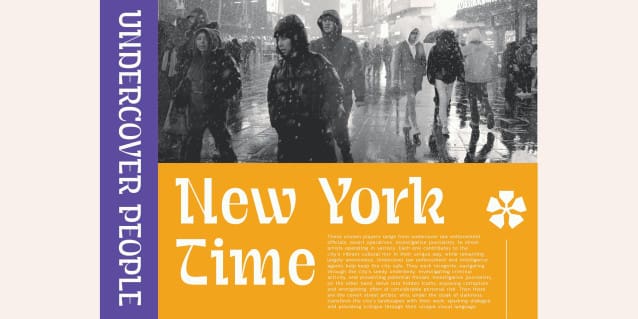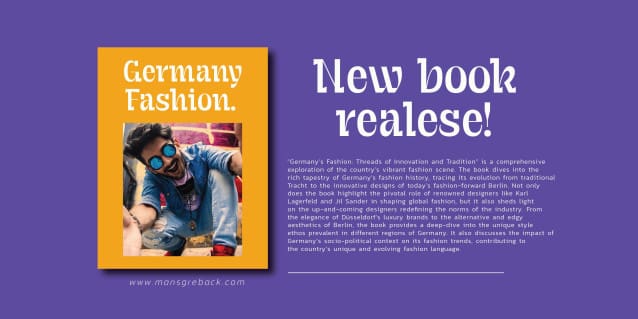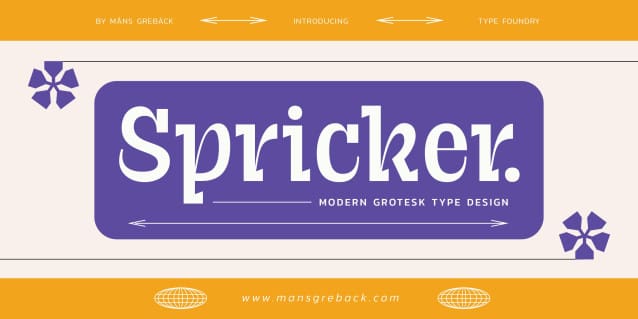
Spricker Display Font
Spricker Display Font, is where contemporary design meets typographical precision. With slab serifs anchoring its design, this typeface achieves a striking balance between robust weight and delicate hairline thin strokes.